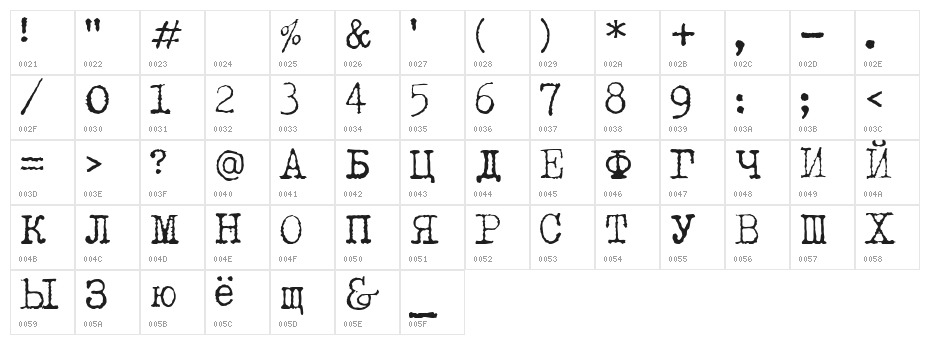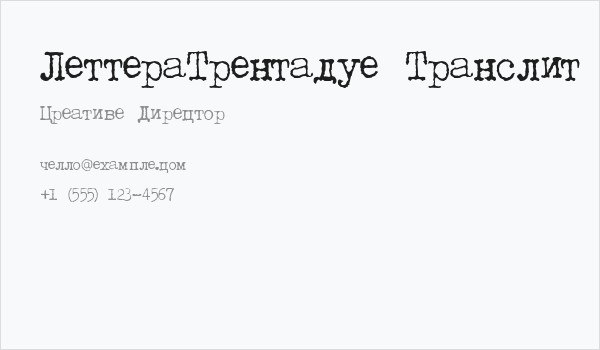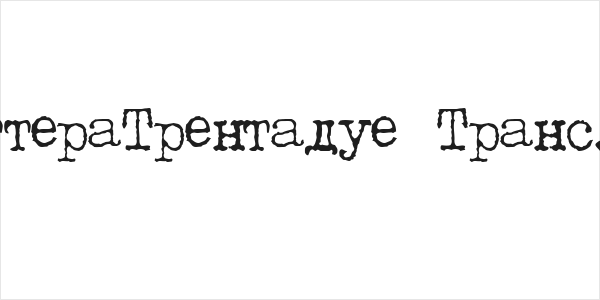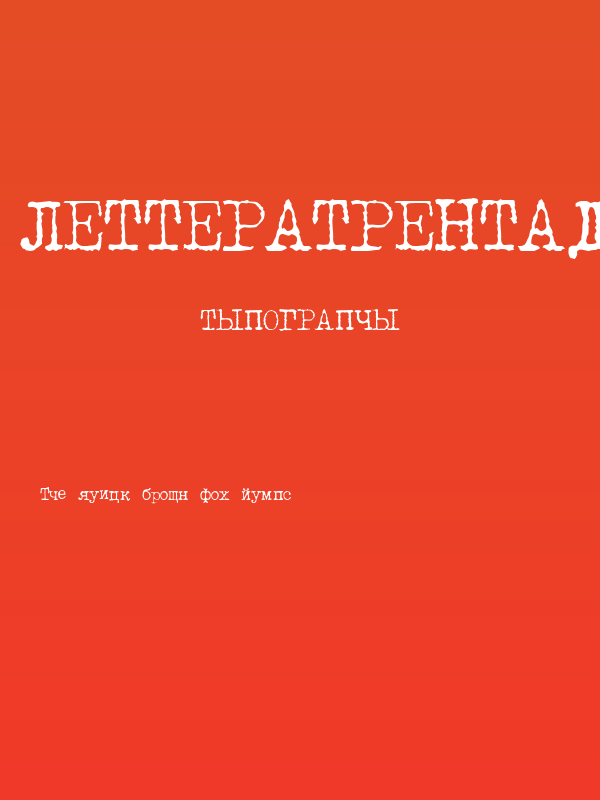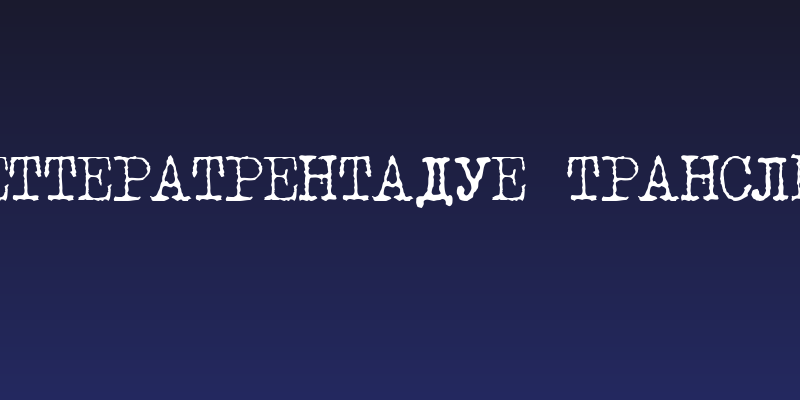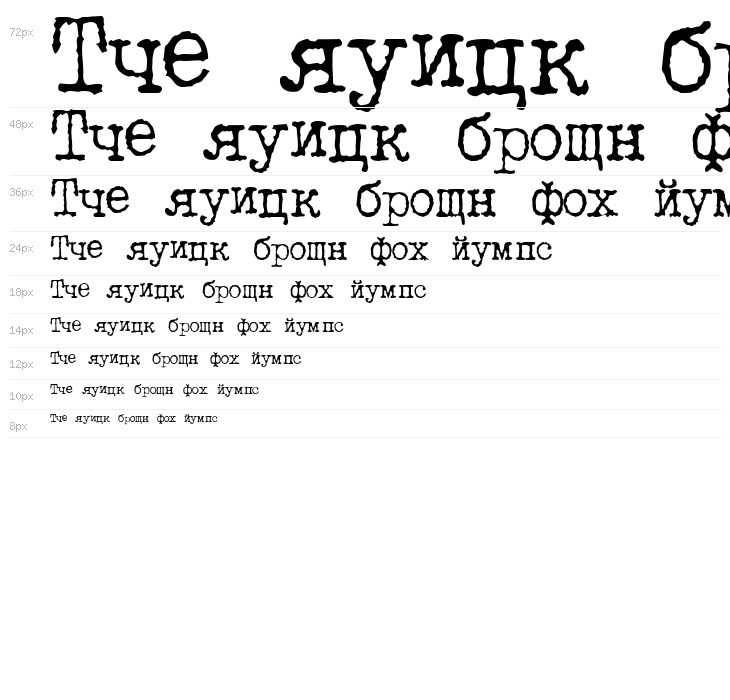
LetteraTrentadue Translit Font
LetteraTrentadue Translit Description
This font exhibits a bold and distressed style, reminiscent of vintage typewriter text. The characters are unevenly inked, giving them a rugged and textured appearance. The uppercase and lowercase letters maintain a consistent design, with serifs that are slightly exaggerated and irregular. Numbers and special characters follow the same aesthetic, contributing to a cohesive look. The font's unique style makes it suitable for projects requiring a retro or industrial feel. Its boldness ensures readability while the distressed texture adds character and depth.
| Proposed Projects | Ideal for vintage-themed designs, posters, album covers, and branding that requires a rugged, industrial look. |